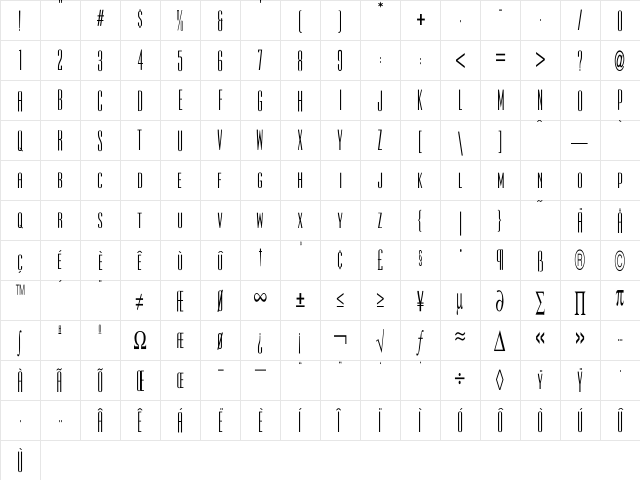
Ultra Regular
Design Context for Ultra Typeface
Ultra is a composed and adaptable typeface that performs quietly and consistently across a wide range of design contexts.
Pro Tip: Use Ultra in both headline and body roles to test its range before committing to a single application.